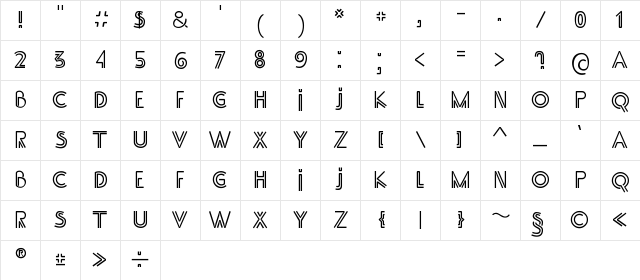
Complete SS_Adec2.0_main main glyph index. Displaying only characters natively supported by SS_Adec2.0_main main font.
SS_Adec2.0_main is a composed and adaptable typeface that performs quietly and consistently across a wide range of design contexts.